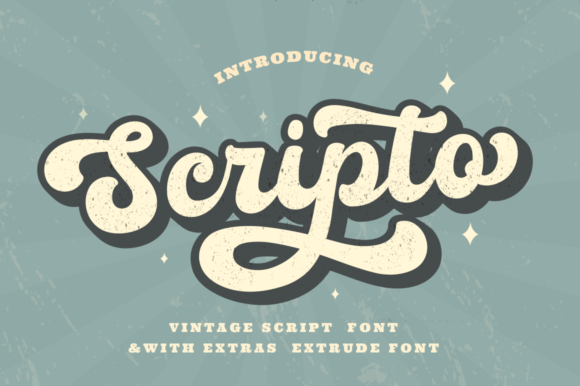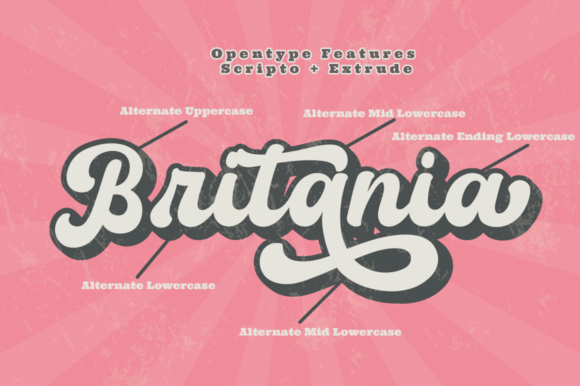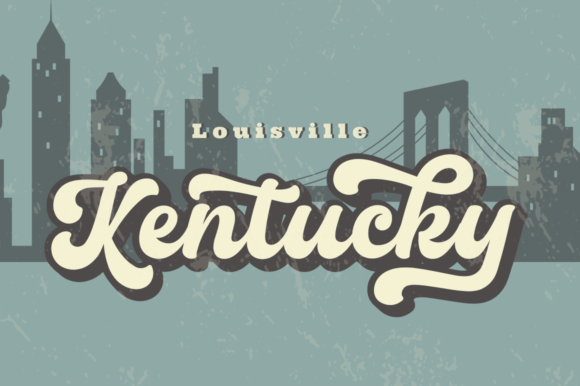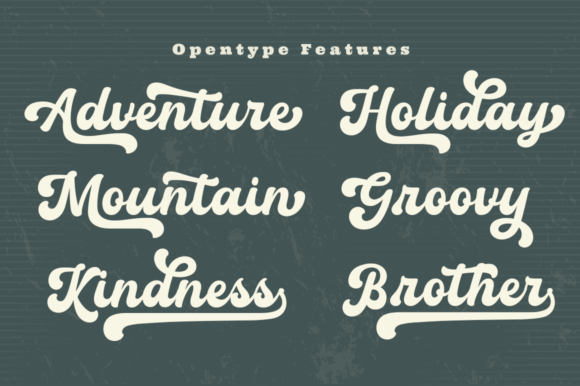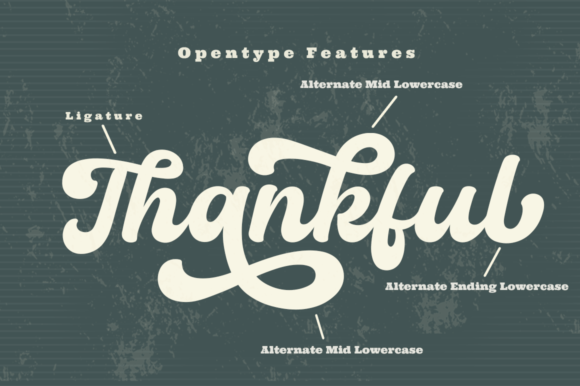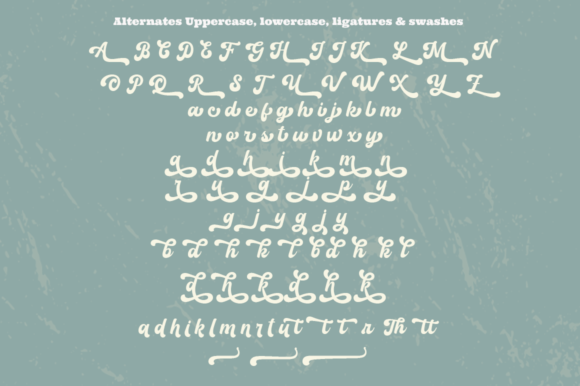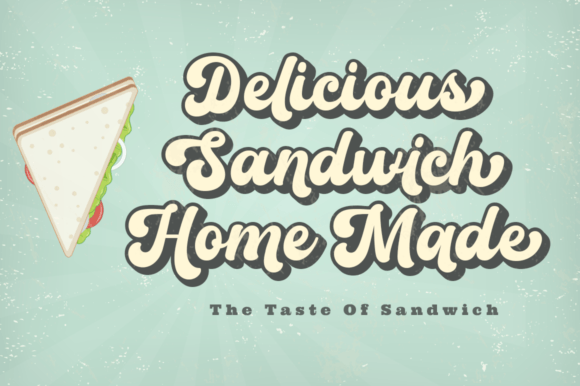
Scripto Font
Scripto is a fun, bold, retro-style script font. This font is neatly crafted and highly detailed. Whatever the topic, this font will be a wonderful asset to your font library, as it has the potential to enhance any creation. Fall in love with its ravishing style and use it to create beautiful designs.